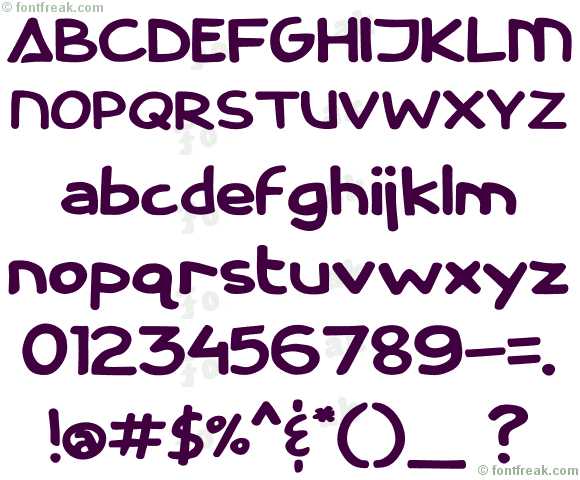
Cassini Marker
About Cassini Marker
Cassini Marker is a distinctive display font created by Kelvin Ma, designed with a playful and informal flair. This unique font falls into the category of handwritten styles, offering a casual, approachable appearance that makes it ideal for a variety of creative projects. The strokes are bold and expressive, with a consistent weight that adds to its legibility while still maintaining a whimsical quality. The rounded edges and friendly curves lend an inviting character, making it a great choice for designs that aim to connect with audiences on a personal level.
This font's versatility shines in several specific use cases. It works beautifully for wedding invitations, where its charming style can add a touch of warmth and intimacy. Cassini Marker is also suitable for children’s books, providing an engaging text that appeals to young readers. Additionally, it can enhance restaurant menus, bringing a fun and inviting atmosphere to the dining experience. Graphic designers will find it useful for branding projects, particularly for businesses looking to convey a friendly and approachable image.
What sets the Cassini Marker font apart is its ability to blend a sense of casual elegance with strong visual appeal. It captures attention while remaining easy to read, making it a valuable addition to any designer’s toolkit. For those looking to infuse their projects with a touch of whimsy, the Cassini Marker font free download is an excellent choice that promises to enhance any design endeavor.